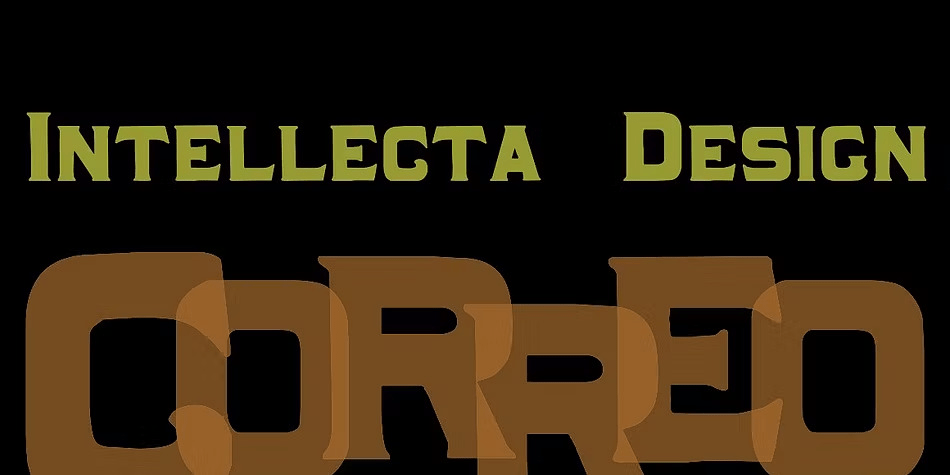
Correo
Correo is a decorative serif with a distinctly retro feel and a playful, curly character. Its letterforms give it a lively, stylized presence that feels expressive rather than restrained, making it a strong choice when you want typography to bring personality to the page.
Offered as a single Regular style from Intellecta Design, this typeface is especially well suited to display use. It can work nicely for vintage-minded branding, posters, packaging, signage, and other headline settings where a 1936–1965 influence and an ornamental serif look feel right at home.